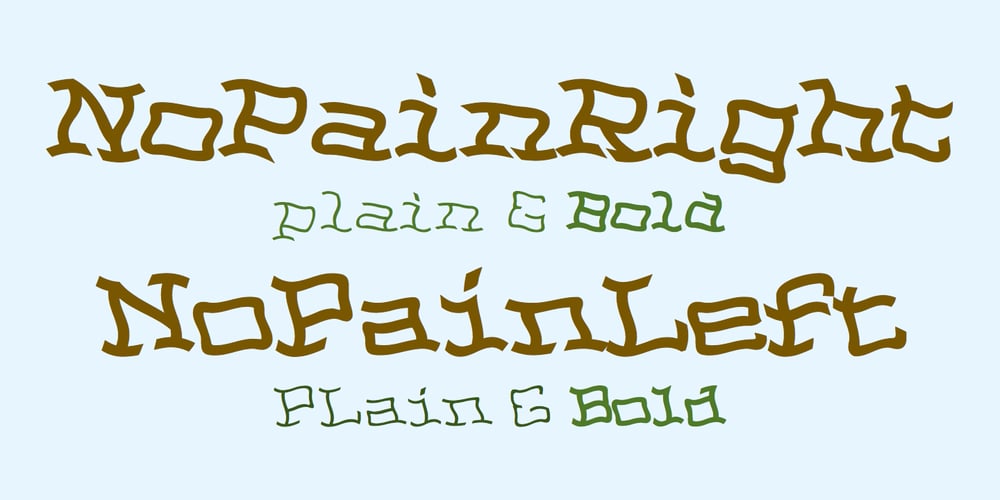
NoPain Font Family was designed by Robert Schenk and published by Ingrimayne Type. NoPain contains 4 styles and family package options. The letters of NoPain went to a party and had a bit too much to drink. The four NoPain typefaces, regular and bold of NoPainRight and NoPainLeft, were formed by distorting the letters of the wide-serifed font Valgal.